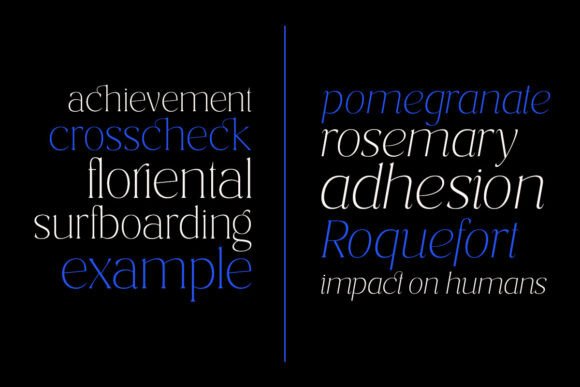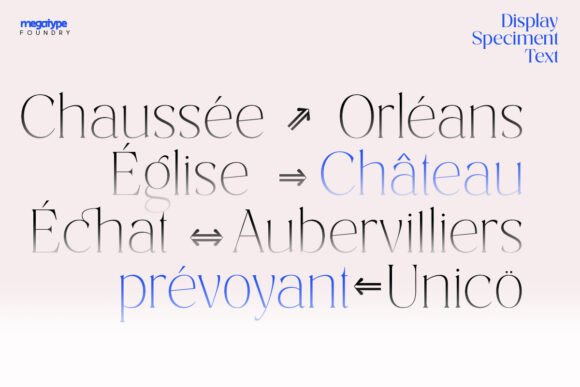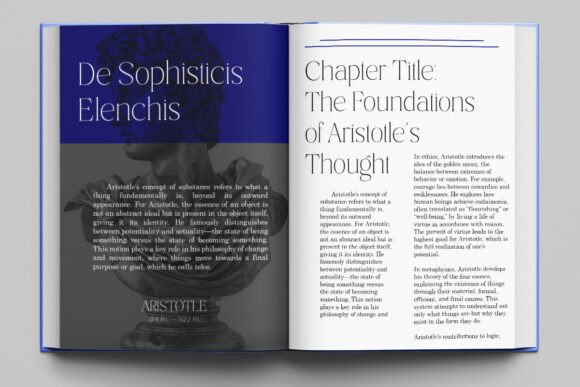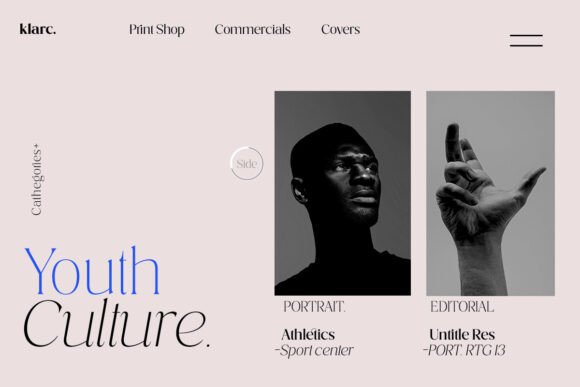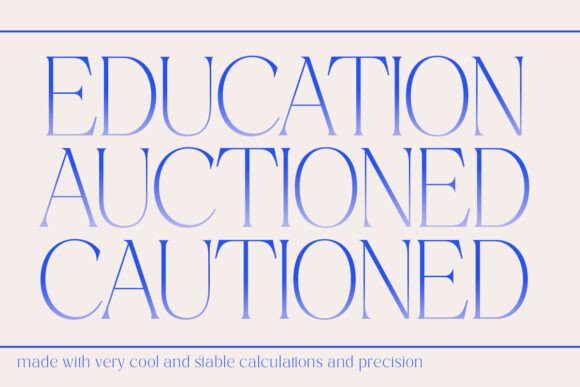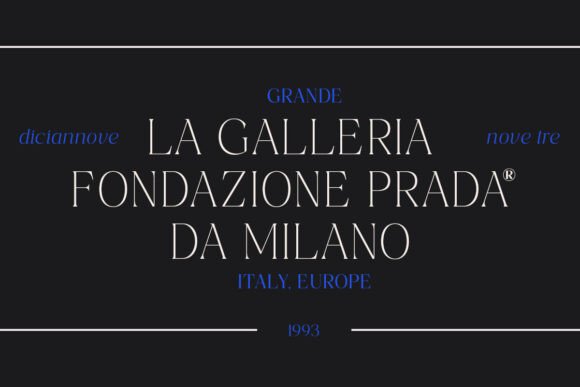
Introducing Costaline Thin: Elevate Your Designs with Elegance and Sophistication
In the world of typography, a font can make or break a design. For designers and crafters seeking a typeface that exudes classic feel and contemporary style, Costaline Thin is an exceptional choice. This harmonious and stylish serif font is designed to refine beautiful designs, uncovering a multitude of visual nuances and hidden secrets.
What is Costaline Thin?
Costaline Thin is a thoughtfully crafted serif typeface, boasting a classic feel that resonates with traditional typography, while incorporating modern elements to make it distinctly contemporary. Its thin weight offers a level of elegance and sophistication, making it perfect for a wide range of design projects.
Key Features of Costaline Thin
- Versatile Style: Costaline Thin comes in both vertical and italic styles, providing designers with the flexibility to explore and experiment with various design concepts. This versatility ensures that designers can adapt the font to suit their project’s specific needs.
- Classic yet Contemporary: The font’s classic serif design is beautifully balanced with modern nuances, making it suitable for both traditional and innovative design projects.
- High Readability: Despite its thin weight, Costaline Thin maintains high readability, making it an excellent choice for body text, headlines, and more.
Use Cases for Costaline Thin
Costaline Thin’s versatility and elegance make it an ideal choice for a myriad of design projects, including:
- Editorial Design: Elevate your magazine and newspaper layouts with Costaline Thin’s refined and sophisticated look.
- Headlines and Titles: Use Costaline Thin to create eye-catching headlines and titles that demand attention.
- Branding Projects: Establish your brand’s identity with a font that exudes elegance and sophistication.
- Logo Design: Create memorable logos that stand out with Costaline Thin’s unique blend of classic and modern elements.
- Packaging Design: Add a touch of luxury and refinement to your product packaging with Costaline Thin.
- Advertisements: Make your ads more compelling with a font that captures the essence of your message.
- Web Design: Enhance your website’s typography with Costaline Thin, ensuring a sophisticated online presence.
Why Choose Costaline Thin?
With an abundance of fonts available, why should designers and crafters choose Costaline Thin? The answer lies in its perfect blend of classic elegance and modern versatility. This font not only enhances the aesthetic value of your designs but also offers:
- Time-Saving: With its comprehensive set of styles, designers can save time and focus on the creative process.
- Consistency: Costaline Thin ensures typographic consistency across various design projects, contributing to a cohesive brand image.
- Uniqueness: Stand out from the crowd with a font that brings a distinct character to your designs.
Costaline Thin is more than just a font; it’s a design companion that brings elegance, sophistication, and versatility to your projects. Whether you’re working on editorial designs, branding projects, or web design, Costaline Thin offers the perfect blend of classic feel and contemporary style. Explore the vast possibilities with Costaline Thin and elevate your designs to new heights of creativity and refinement.